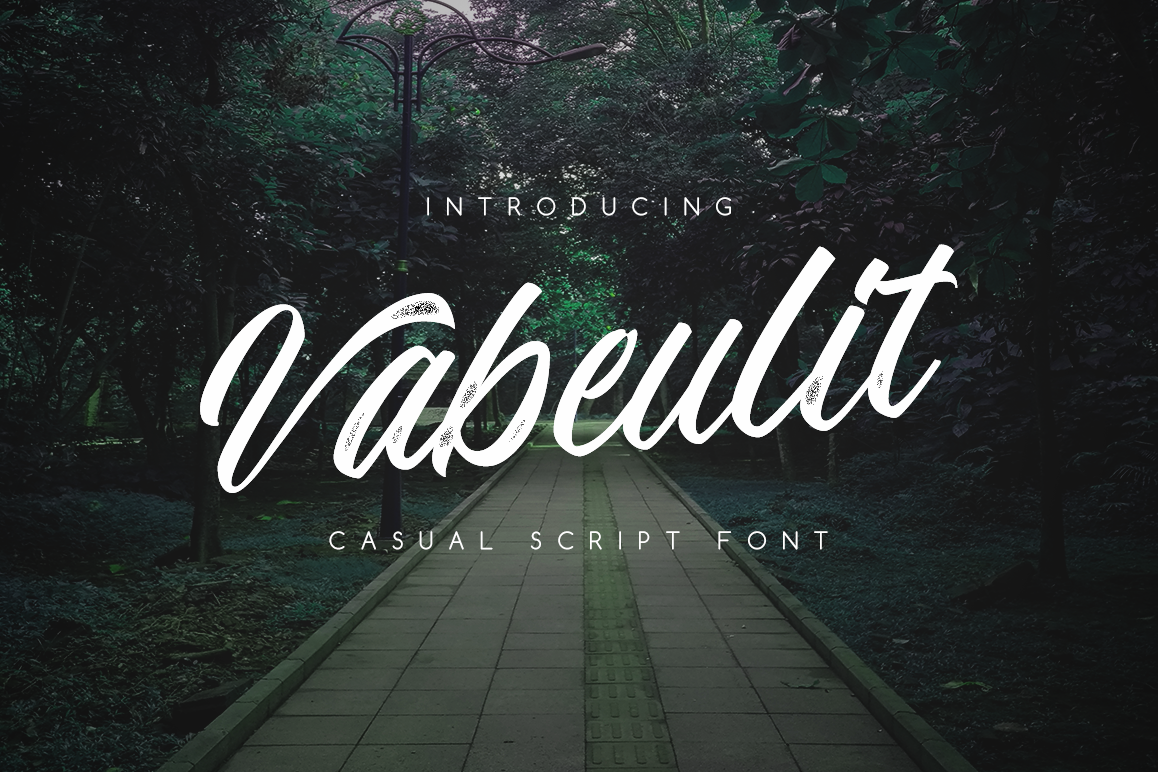
Vabeulit script font
Vabeulit
Vabeulit is hand lettered script font, that suitable for every purpose like banner, logotype, packaging design, quotes, poster and much more. Vabeulit is has smooth and natural shape, that makes this typeface looks beautiful in every use, and looks suitable and match with other font, especially with serif and sans font.